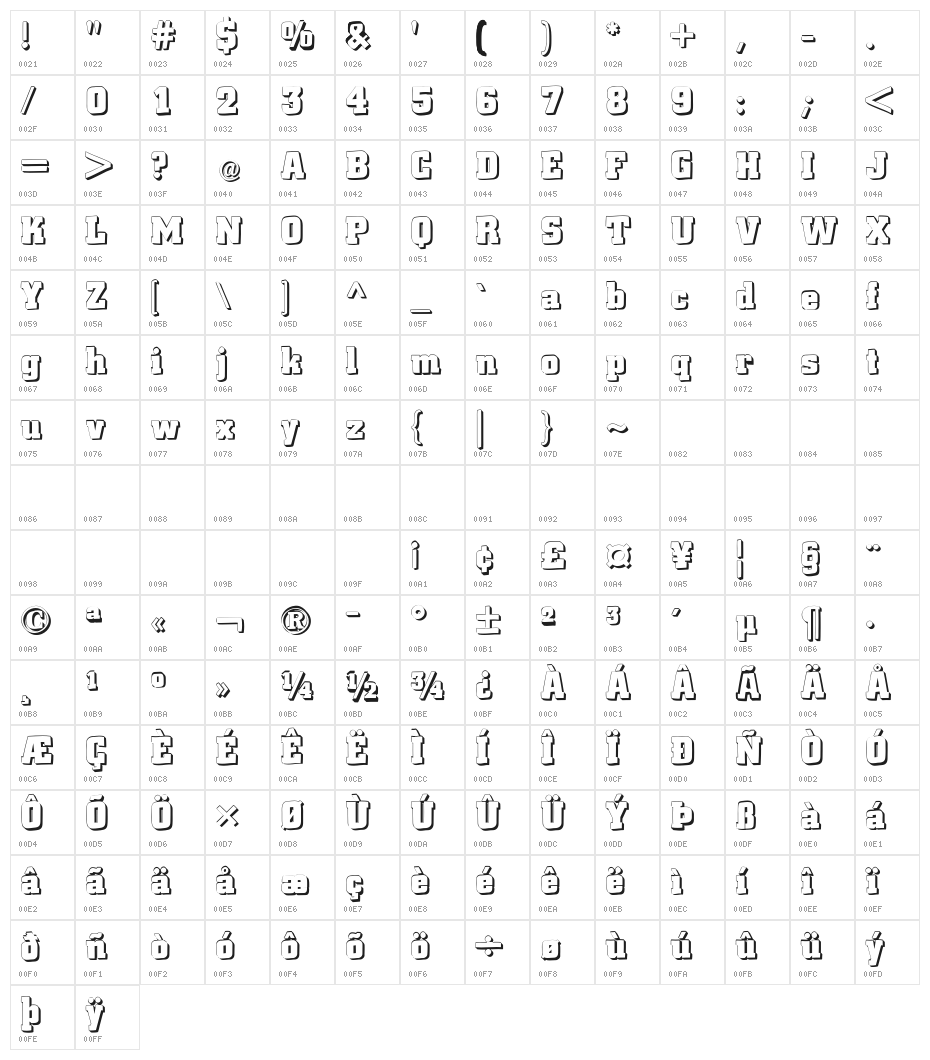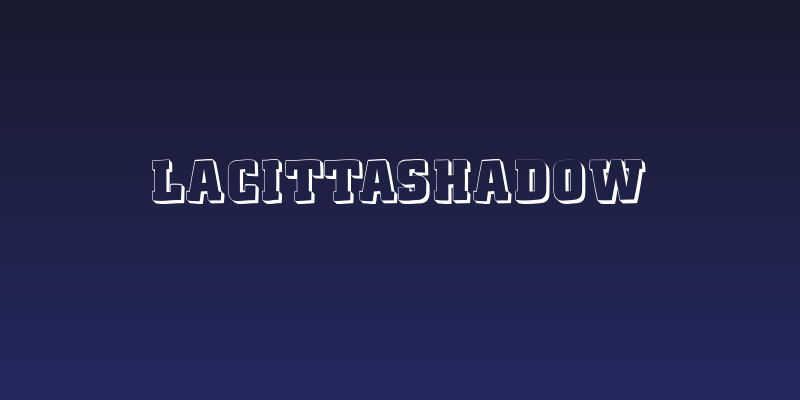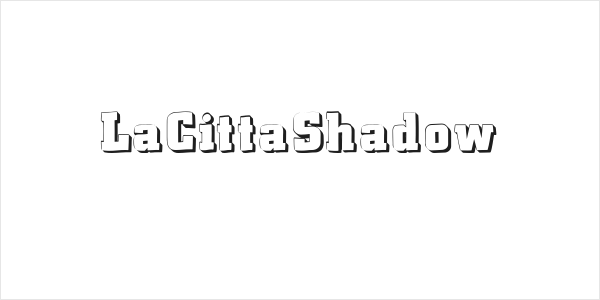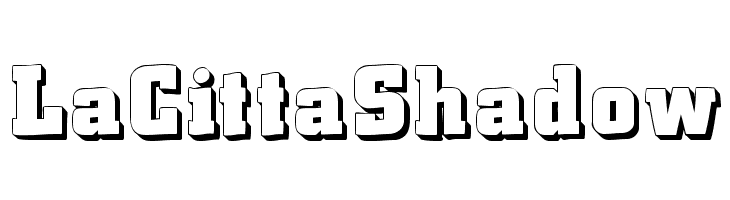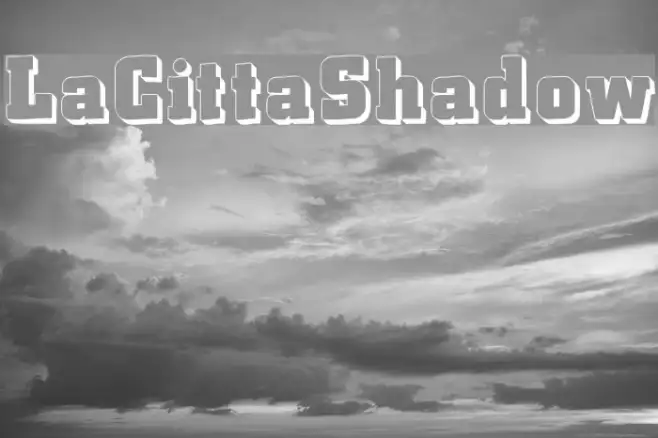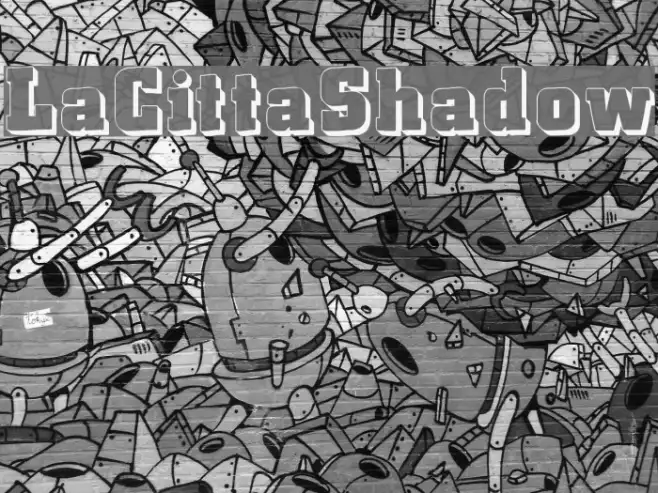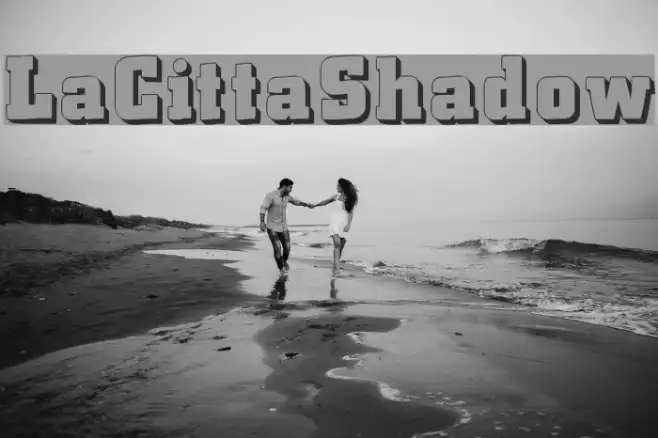
LaCittaShadow Font
LaCittaShadow Description
This font features a bold, three-dimensional shadow effect that gives it a strong and impactful presence. The uppercase and lowercase letters are designed with a consistent thickness, enhancing readability while maintaining a decorative flair. The numerals and special characters follow the same stylistic approach, ensuring uniformity across all elements. The shadow effect adds depth, making it suitable for eye-catching designs. The font's robust structure and unique style make it ideal for projects that require a bold statement.